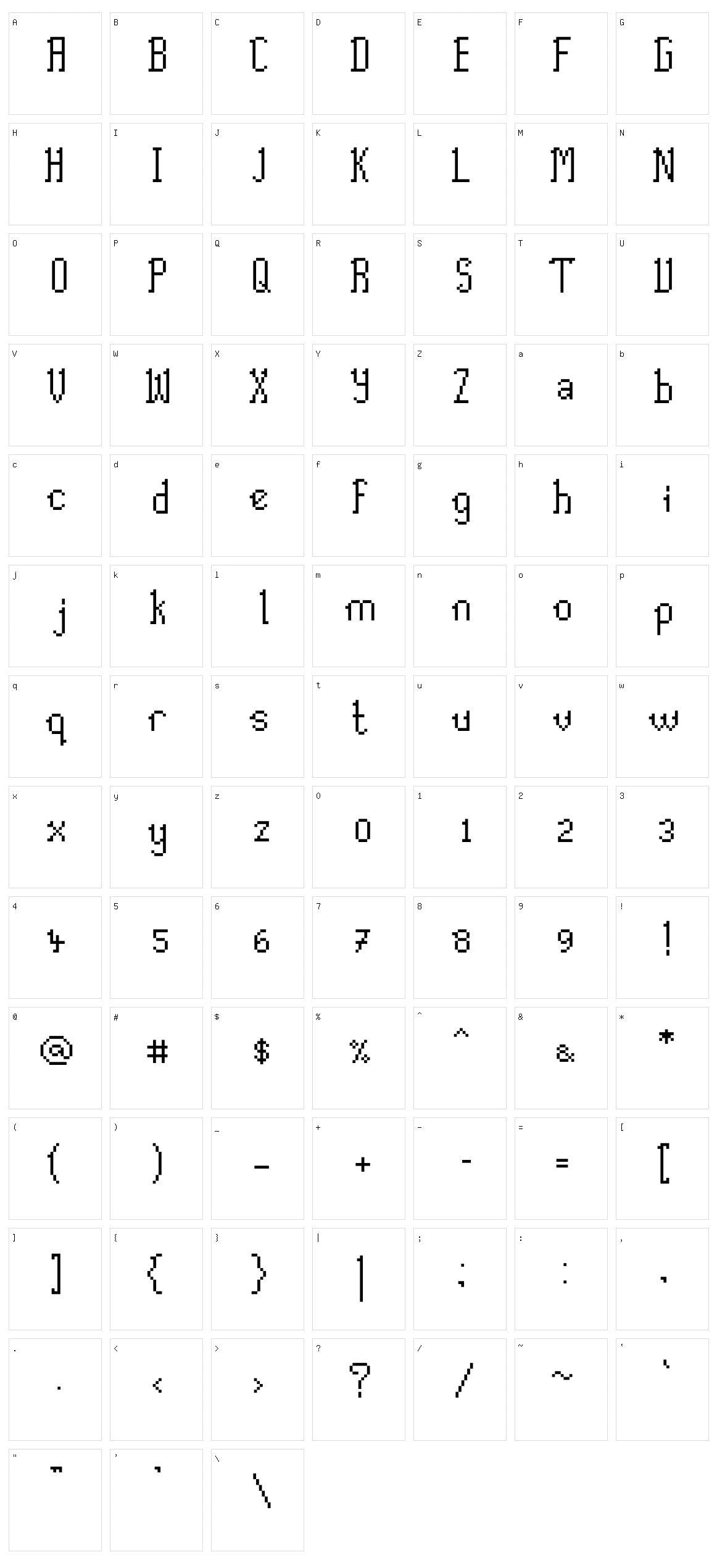
Haversham
Designed by: Sean Noonan
"Haversham" by Sean Noonan
This is a pixel font so be sure to use with anti-aliasing "off" and only at the following sizes...
100% | 12 pt | 16 px
200% | 24 pt | 32 px
300% | 36 pt | 48 px
400% | 48 pt | 64 px
etc.